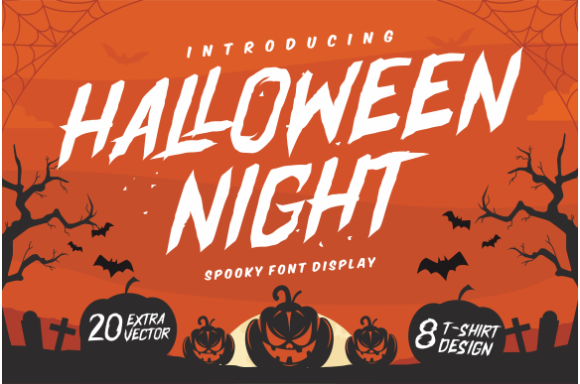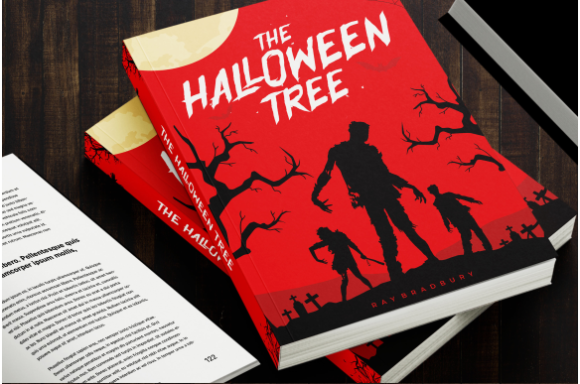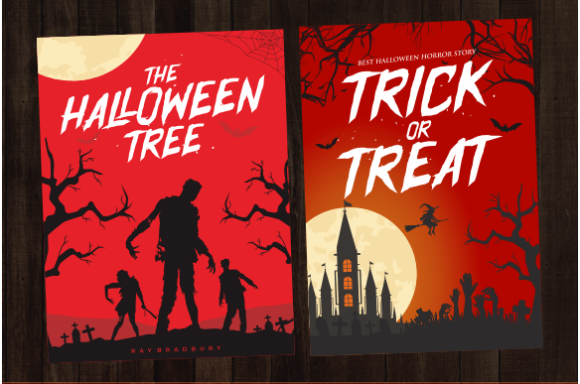
Halloween Night Font
Halloween Night it’s a spooky, fun and scary display font. Add it to your most creative ideas and notice how it makes them stand out!